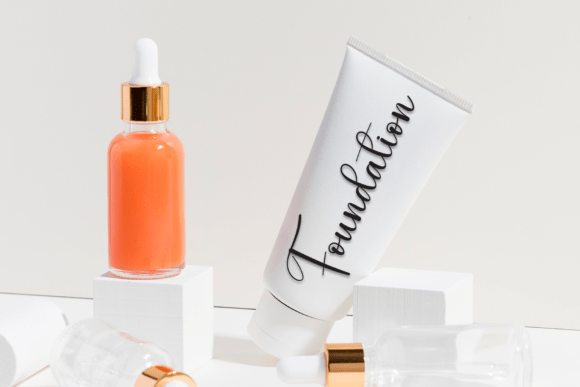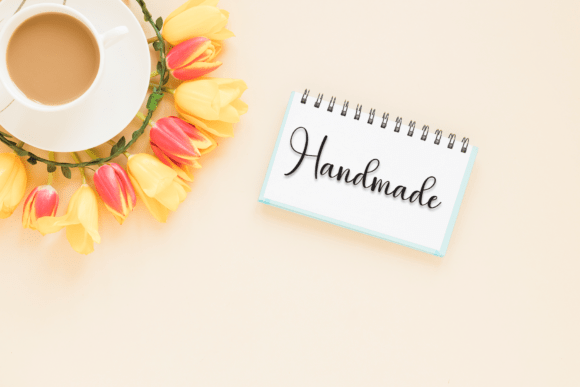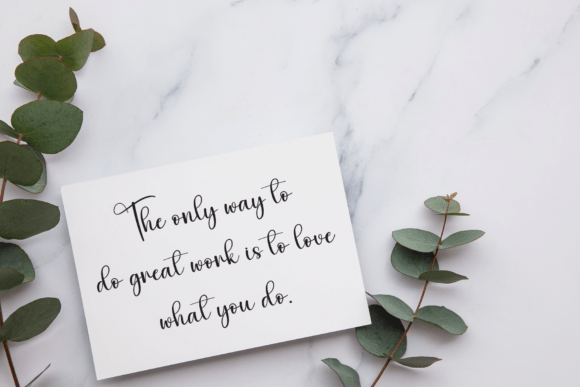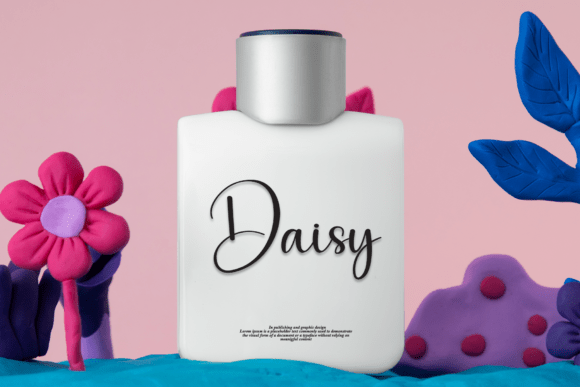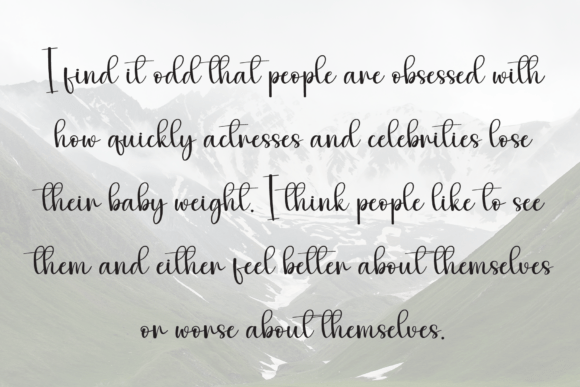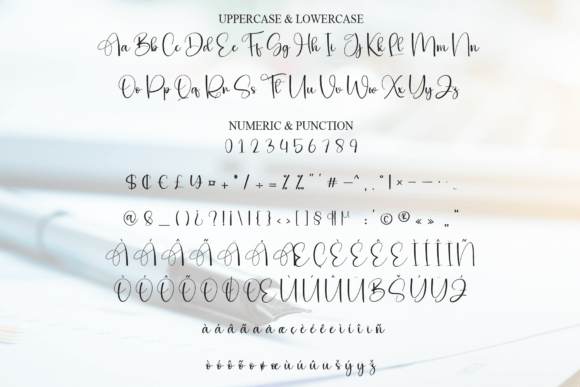
Unleashing Creativity with the Autography Font
Have you ever sat down with a blank sheet of paper, a pen in hand, and felt the urge to create something truly unique? The thrill of bringing an idea to life is a sensation that many designers and artists know all too well. It’s a moment of pure creativity, where the possibilities seem endless and the only limit is your imagination.
For those seeking to infuse their designs with artistic flair and modern elegance, the Autography Font is an ideal choice. This stylish script font features fluid brush strokes, dynamic curves, and expressive letterforms, capturing the essence of hand-painted calligraphy with a contemporary twist. Whether you’re crafting a logo, designing an invitation, or creating social media graphics, the Autography Font adds a creative and sophisticated touch to any project.
As a valuable asset for designers, the Autography Font delivers both visual impact and versatility, making it a must-have in any design toolkit.
Autography Font Key Features
- Font Family: Autography is a unique, handwritten font designed to mimic the look of hand-written notes.
- Unique Characteristics: Autography’s distinctive, handwritten style makes it perfect for creating a personal, touchable feel in your designs.
- Language Support: Supports a wide range of languages, including Latin, Cyrillic, and Greek scripts, making it a versatile choice for global applications.
Designer Review: Autography Font
Overall, I think Autography Font is a solid choice for designers looking for a unique and elegant script font. ✨ The font’s fluid lines and organic feel make it perfect for creating a sense of sophistication and luxury in branding and packaging design.
One of the things I appreciate most about Autography Font is its versatility. ✨ It works well for both digital and print applications, and its OpenType features allow for a wide range of creative possibilities. ✨ I also appreciate the font’s extensive language support, making it a great choice for global brands.
What Doesn’t Work
While Autography Font is a great addition to any designer’s toolkit, there are a few limitations to consider. ⚠️ The font can be quite dense, which may make it difficult to read in certain contexts. ⚠️ Additionally, some of the font’s ligatures and swashes can be a bit too ornate, which may detract from the overall design.
- The font can be quite dense, which may make it difficult to read in certain contexts.
- Some of the font’s ligatures and swashes can be a bit too ornate, which may detract from the overall design.
Tips for Getting the Most Out of Autography Font
Use Autography Font to create unique and eye-catching titles and headings.
Combine Autography Font with other creative fonts to add visual interest to your design.
Experiment with different font sizes and colors to achieve the desired effect.
Branding and marketing materials
Event signage and banners